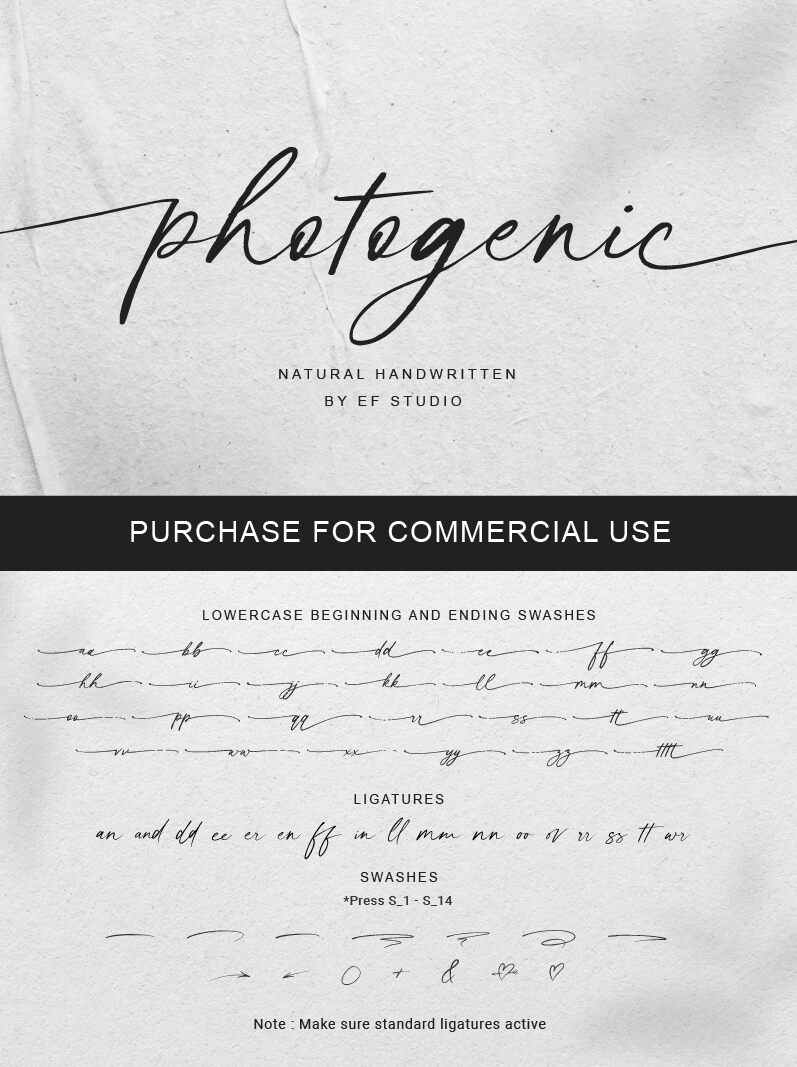
Photogenic font, crafted by Ef Studio, embodies the elegance of a handwritten signature style with its light, flowing lines. This free font's graceful curves and personal touch make it a standout choice for projects that seek an air of sophistication and authenticity.
Its unique aesthetic is perfect for branding, wedding invitations, or any design needing a touch of elegance. The delicate strokes add charm while maintaining readability, making it versatile for various applications.
Features: Lowercase Beginning & Ending Swashes, Extra Swashes & Ligatures.